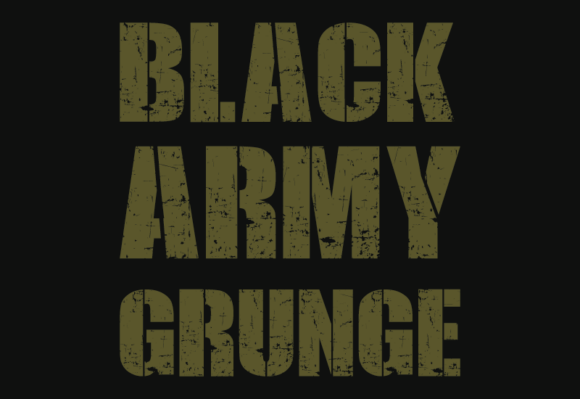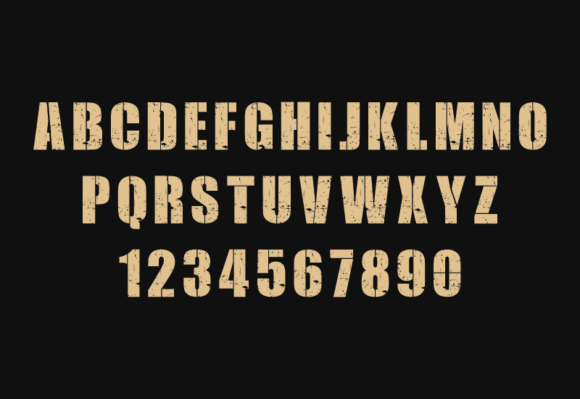
The Perfect Storm of Creativity: Unleashing the Power of Black Army Grunge Font
Imagine yourself in the middle of a chaotic design session, with a blank canvas staring back at you, and the pressure to create something truly unforgettable mounting by the minute. You know exactly what you want – a font that screams attitude, exudes raw energy, and commands attention without apology. This is where the Black Army Grunge Font steps in, a daring display font that combines rugged grunge undertones with distressed edges to create an explosive visual impact.
Whether you’re crafting military-inspired designs, logos, or branding, this font is a game-changer. Its fierce and fighting spirit brings a touch of raw power to your creative endeavors, making it the perfect fit for streetwear designs and vintage projects. With Black Army Grunge Font, you can unleash your inner designer and create immersive graphics that refuse to be overlooked.
Key Features of Black Army Grunge Font
- Font Style: A distressed, grunge-inspired font with a rough, edgy look.
- Unique Characteristics: Features a unique blend of grunge and distressed textures, with a bold and rugged feel.
Black Army Grunge Font Review
Overall, I’d say the Black Army Grunge Font is a solid choice for those looking for a bold, edgy font. ✨ It’s great for headings and titles, adding a touch of grunge chic to any design project. The font’s distressed look gives it a unique, vintage feel that’s perfect for music, fashion, or streetwear-inspired designs.
- ✨ Bold and eye-catching, making it perfect for headings and titles
- ✨ Unique distressed look adds a touch of grunge chic to designs
- ✨ Works well for music, fashion, or streetwear-inspired designs
- ⚠️ Limited versatility – may not be suitable for all design projects
- ⚠️ Can be overwhelming if used extensively throughout a design
- ⚠️ May not be the best choice for projects requiring a more polished or professional look
The Black Army Grunge Font is a great addition to any designer’s toolkit, but it’s essential to use it judiciously. While it’s perfect for adding a bold, edgy touch to certain designs, it may not be the best choice for all projects. With careful consideration and restraint, this font can add a unique and memorable element to your designs.
The Black Army Grunge font is perfect for:
- Rock music posters and flyers.
- Distressed or vintage-style designs.
- Edgy or rebellious brand identities.